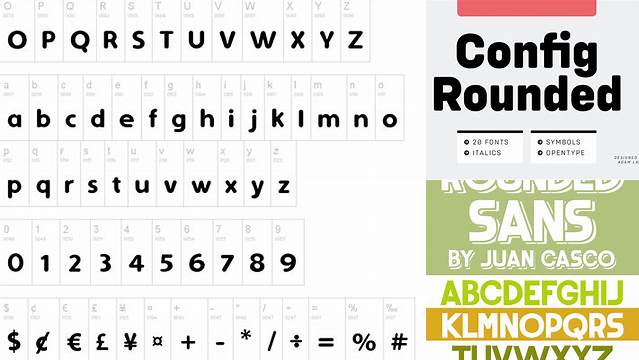
Find Rounded Sans Serif Fonts On DaFont: A Guide
Hey guys! If you're on the hunt for the perfect rounded sans serif font for your next project, you've probably stumbled upon DaFont, a treasure trove of fonts. But with so many options, where do you even begin? This guide is here to help you navigate the world of rounded sans serif fonts on DaFont and find the ideal typeface for your needs. We'll dive into what makes these fonts so appealing, where they shine, and some top picks to get you started. So, let's get those creative juices flowing!
What Makes Rounded Sans Serif Fonts So Appealing?
Rounded sans serif fonts are a favorite among designers and creatives for a good reason. Their smooth, curved terminals give them a friendly, approachable, and modern feel. Unlike their sharper, more angular counterparts, these fonts exude warmth and readability, making them a versatile choice for a wide range of applications. The soft edges eliminate any harshness, providing a gentler visual experience that is easy on the eyes, especially in longer texts or at smaller sizes. This inherent legibility is a significant advantage, ensuring your message is clear and accessible to your audience.
One of the key benefits of using rounded sans serif fonts is their versatility. They work beautifully in both digital and print mediums, making them a reliable choice for everything from website headers and body text to branding materials and marketing collateral. This adaptability stems from their clean, uncluttered design, which integrates seamlessly into various contexts. Whether you're designing a sleek website, a professional brochure, or a playful logo, a well-chosen rounded sans serif can elevate your project.
Furthermore, rounded sans serif fonts often carry a sense of modernity and innovation. Their contemporary aesthetic aligns well with current design trends, making them an excellent option for brands looking to convey a forward-thinking image. This is particularly true in the tech industry, where a clean, approachable font can help to humanize a brand and build trust with consumers. The simplicity of these fonts allows the message to take center stage, without being overshadowed by overly complex typography.
In addition to their practical advantages, rounded sans serif fonts also possess a unique emotional quality. The gentle curves evoke feelings of comfort, security, and friendliness. This makes them particularly well-suited for projects that aim to connect with audiences on an emotional level. Think about the fonts used in children's books, healthcare websites, or eco-friendly product packaging – chances are, you'll find a rounded sans serif in the mix. By choosing a font that resonates with your target audience, you can enhance the overall impact of your design and create a more memorable experience.
Ultimately, the appeal of rounded sans serif fonts lies in their ability to balance functionality and aesthetics. They provide the readability and clarity needed for effective communication, while also adding a touch of personality and warmth. Whether you're aiming for a professional, playful, or modern look, a rounded sans serif font can be a powerful tool in your design arsenal. So, next time you're faced with a typography challenge, consider reaching for a rounded sans serif – you might be surprised at the results.
Where Do Rounded Sans Serif Fonts Shine?
Rounded sans serif fonts are incredibly versatile and can shine in various design contexts. Let's explore some specific areas where these fonts truly excel, making your projects look polished and professional.
Firstly, in the realm of web design, rounded sans serifs offer a clean and modern aesthetic that is perfect for creating user-friendly interfaces. These fonts are easy to read on screens, even at smaller sizes, making them ideal for body text, navigation menus, and call-to-action buttons. Their approachable nature can help create a welcoming experience for website visitors, encouraging engagement and interaction. For example, a technology company might use a rounded sans serif to convey innovation and approachability, while a lifestyle blog could employ one to create a friendly and inviting atmosphere. The key is to choose a font that aligns with the overall brand personality and message. A well-chosen rounded sans serif can significantly enhance the user experience, making it more enjoyable and intuitive.
Moving on to branding, rounded sans serif fonts play a crucial role in shaping a brand's identity. These fonts can communicate a sense of warmth, trustworthiness, and modernity, which is essential for building brand loyalty and recognition. Logos, business cards, and marketing materials often benefit from the clean and approachable look of a rounded sans serif. Think about brands that prioritize customer relationships and personal connections – they often opt for rounded fonts to convey these values. For instance, a healthcare provider might use a rounded sans serif to project a sense of care and comfort, while a creative agency could leverage it to signal innovation and approachability. The flexibility of these fonts allows them to be adapted to various branding styles, ensuring consistency across all touchpoints.
In print design, the legibility and clarity of rounded sans serif fonts make them an excellent choice for brochures, posters, and other marketing collateral. These fonts maintain their readability even when printed at small sizes, ensuring that your message is clear and impactful. Their gentle curves can also add a touch of sophistication and elegance to print materials, making them more visually appealing. Whether you're designing a corporate brochure or a promotional flyer, a rounded sans serif can help you create a professional and engaging piece. The key is to select a font weight and style that complements the overall design and ensures optimal readability. By carefully considering these factors, you can create print materials that effectively communicate your message and leave a lasting impression.
Furthermore, user interfaces (UI) and user experience (UX) design heavily rely on readable and approachable fonts, and rounded sans serifs fit the bill perfectly. These fonts are designed to be easy on the eyes, reducing strain and improving the overall user experience. Their clean lines and simple shapes make them ideal for displaying information clearly and concisely. In apps and software interfaces, rounded sans serifs can help guide users through various tasks and features, making the interface more intuitive and user-friendly. The choice of font can significantly impact the usability of a digital product, so selecting a rounded sans serif is often a smart move. By prioritizing readability and visual comfort, designers can create interfaces that are both functional and aesthetically pleasing.
Rounded sans serif fonts are a fantastic choice for a wide range of design projects. Their versatility, readability, and modern aesthetic make them a staple in any designer's toolkit. DaFont offers an incredible selection of these fonts, making it easy to find the perfect typeface for your needs. By considering your project's purpose, brand personality, and the tips outlined in this guide, you can confidently choose a rounded sans serif font that will elevate your designs and communicate your message effectively. Happy font hunting, guys!